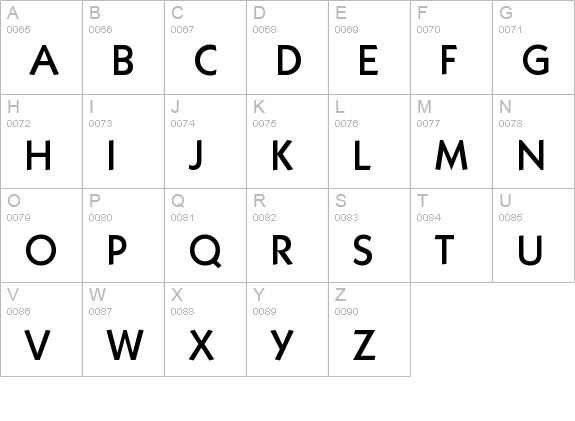
KoblenzSerial-Medium-Regular Font Details
KoblenzSerial-Medium-Regular is a balanced, medium-weight variant in the KoblenzSerial typeface family \xE2\x80\x94 well suited to sub-headlines, navigation, and balanced editorial work.
KoblenzSerial-Medium-Regular is a modern and versatile font that strikes the perfect balance between professionalism and creativity. With its clean lines and classic design, this font is ideal for a wide range of projects, from branding to editorial design. What sets KoblenzSerial-Medium-Regular apart is its exceptional readability and stylish appearance, making it a great choice for both print and digital applications. Whether you're working on a website, a magazine layout, or a business card, this font will add a touch of sophistication to your design. Best of all, KoblenzSerial-Medium-Regular is available for free download at FontsMarket.com. So you can enhance your projects with this elegant font without breaking the bank. Don't miss out on this opportunity to elevate your designs with KoblenzSerial-Medium-Regular!